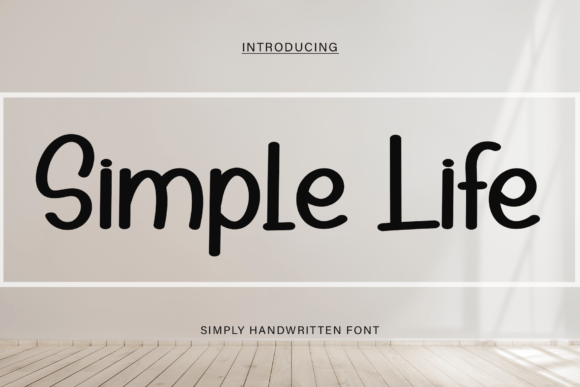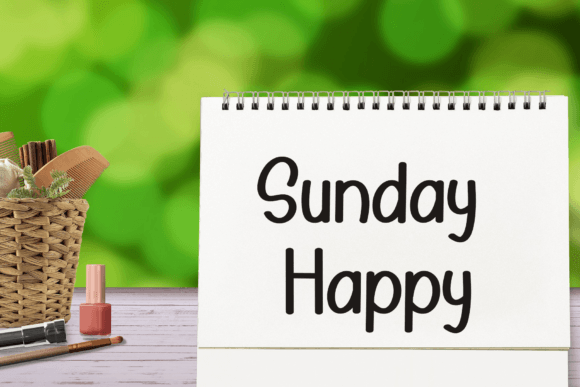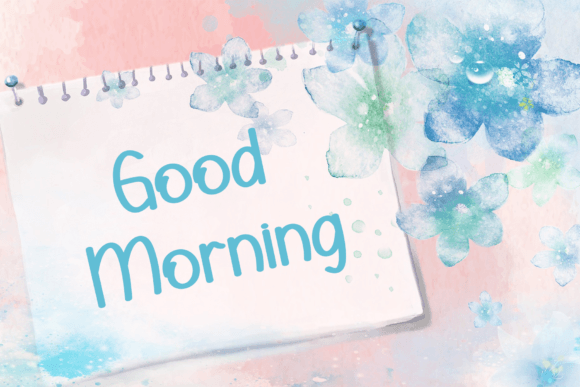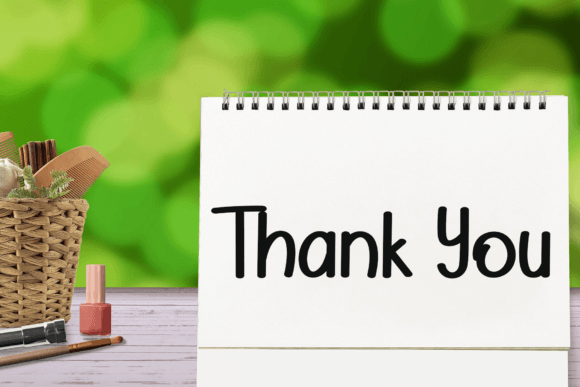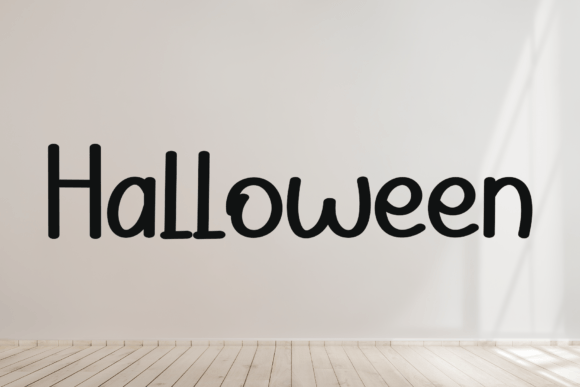
Simple Life Font
About Simple Life Font
**Simple Life: A Cool and Modern Handwritten Font for Versatile Design**
**Simple Life** is a cool and modern handwritten font that offers versatility and style for a wide range of design ideas. Whether you’re working on branding, social media graphics, posters, or any creative project, this font can add a contemporary touch to your designs.
Here’s how you can make the most of **Simple Life** in your design work:
– **Branding:** Use this font to create a distinctive and contemporary brand identity that appeals to a modern audience.
– **Social Media Graphics:** Design engaging and eye-catching social media posts, captions, and stories with the fresh and modern look of **Simple Life**.
– **Posters:** Create trendy and attention-grabbing posters for events, promotions, or artistic expressions using this font.
– **Product Packaging:** Give your product packaging a modern and stylish appearance with custom typography featuring **Simple Life**.
– **Websites:** Incorporate this font into web design to achieve a sleek and contemporary online presence.
– **Digital and Print Collateral:** Use **Simple Life** for various collateral materials, such as brochures, flyers, and business cards, to make a lasting impression.
The versatility of **Simple Life** makes it suitable for a wide range of industries and design applications. Its handwritten style adds a personal and approachable touch to your projects, making them relatable to your audience.
This font’s modern and cool aesthetic is well-suited for contemporary design trends and appeals to a broad demographic. Whether your design project is for a young and trendy audience or a more mature and sophisticated one, **Simple Life** can adapt to suit your needs.
In summary, **Simple Life** is a font that embodies a modern and cool handwritten style. Its versatility, contemporary look, and adaptability make it an excellent choice for a wide variety of design ideas. Embrace the simplicity and style of **Simple Life** to elevate your creative projects and make a lasting impression on your audience.